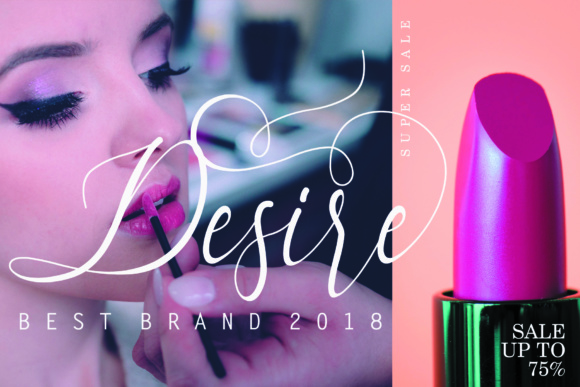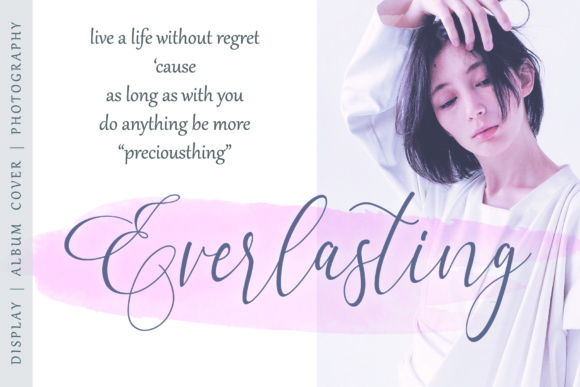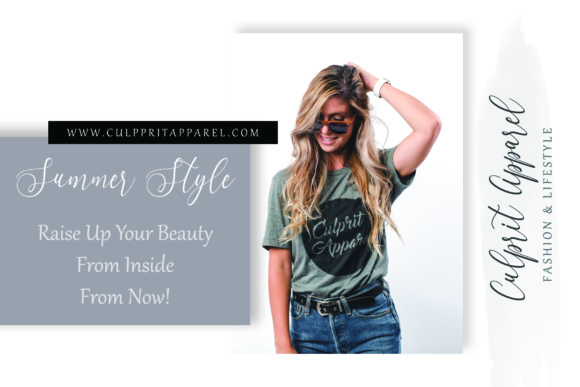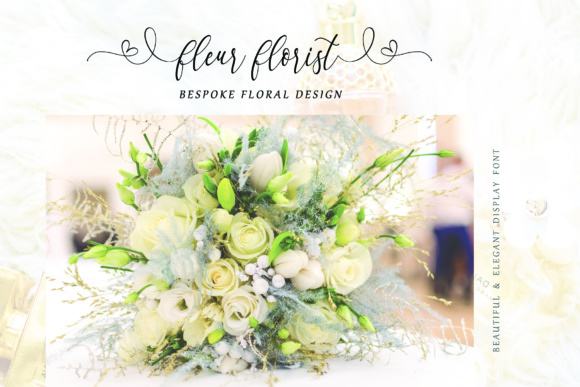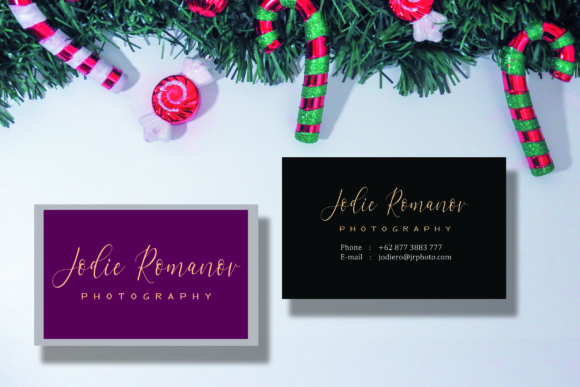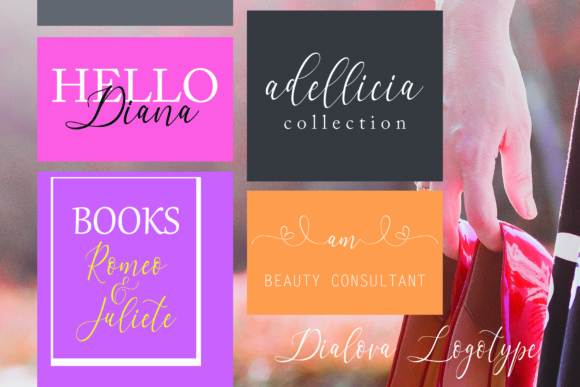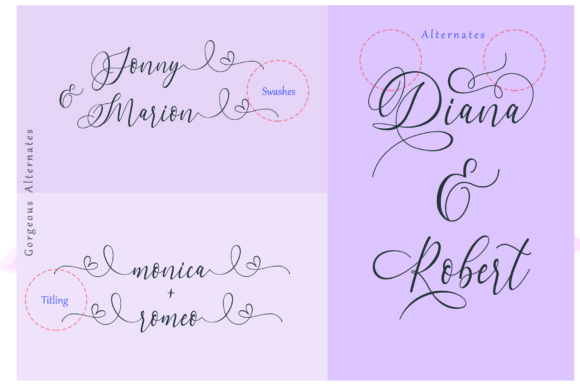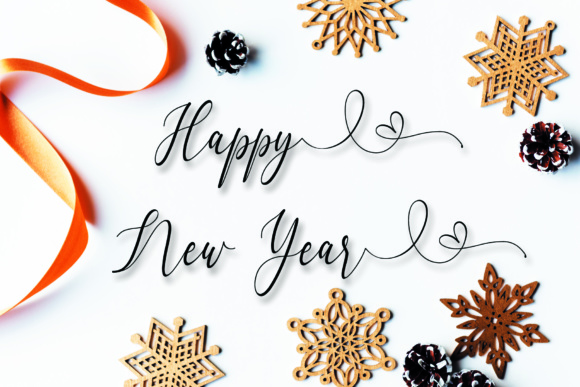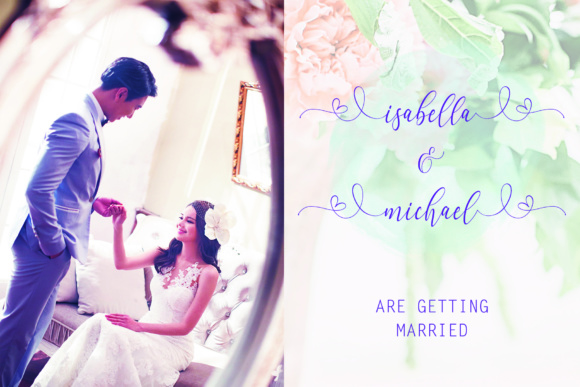
Dialova Font
About Dialova Font
The Dialova is a stylish calligraphy script font with gorgeous swashes, titling, and alternates. It’s easy to use and will add a touch of elegance to your design.